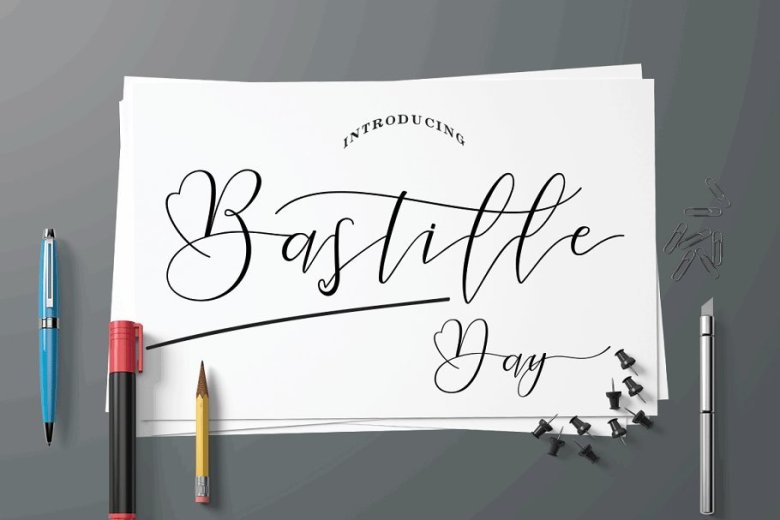
Bastille Day Script Font
A modern calligraphy typeface by RTCREATIVE86, with perfect curve and feminime style. Introducing Bastille Day Font. Bastille Day Modern Calligraphy. This font was designed by handwriting, and it has a modern and unique forms of calligraphy, the writing style is very natural. Bastille Day perfect for fashion, branding, design, etc. Come with a fresh lowercase, uppercase, multilingual.